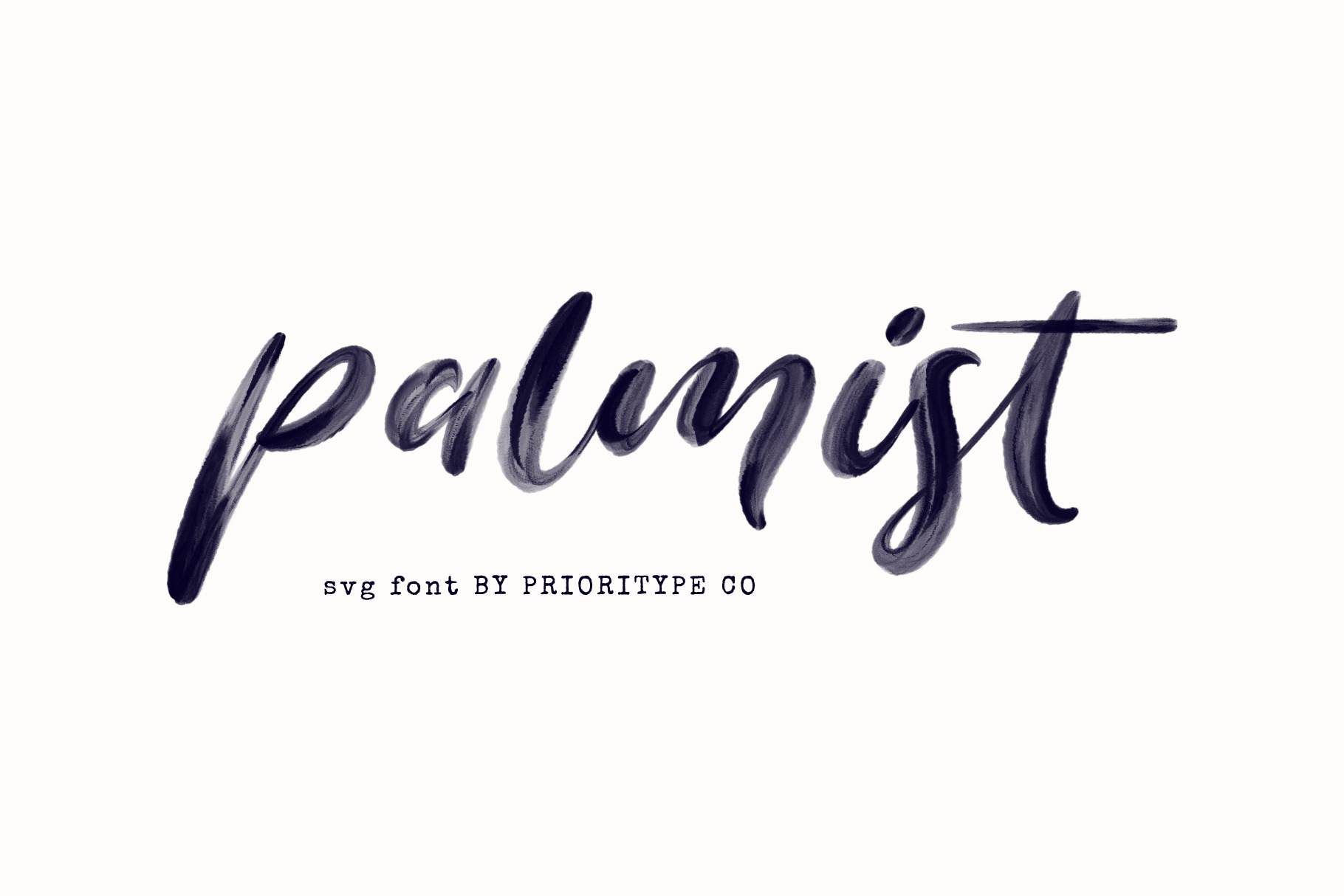
Palmist - SVG Script Font
Palmist - SVG Script Font.
A beautiful script font with an awesome paint texture. There are 2 styles, namely (Regular) & (SVG). Looks natural and very pleasing to the eye. Great for wedding invitation designs, quotes, branding, product packaging etc.